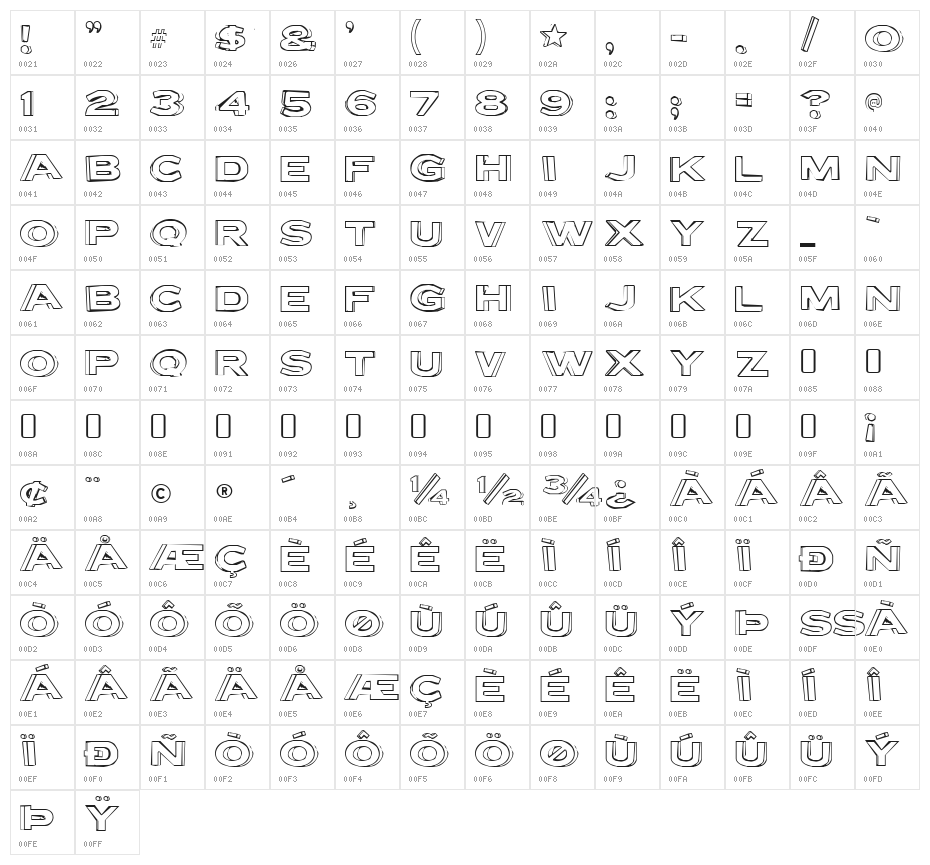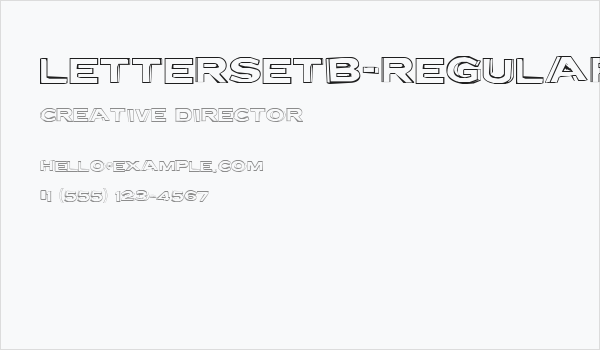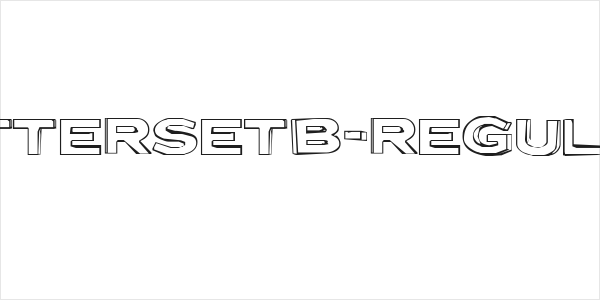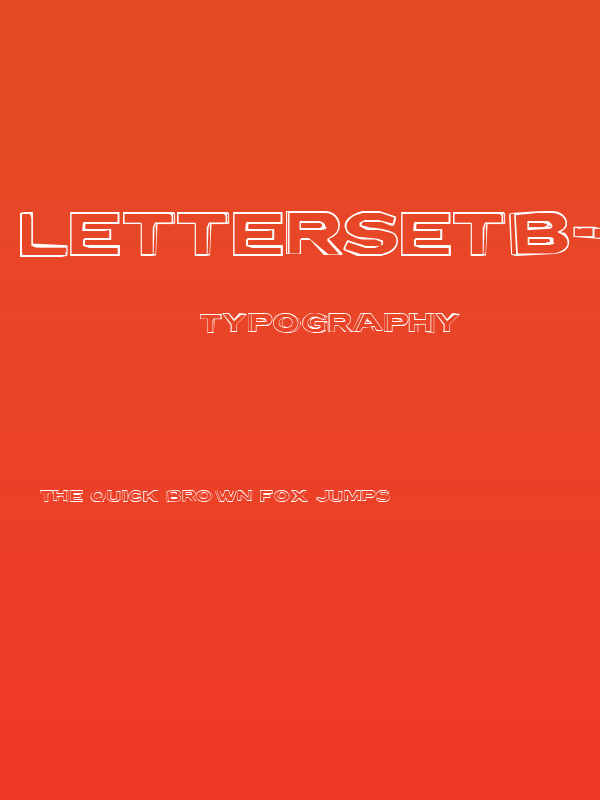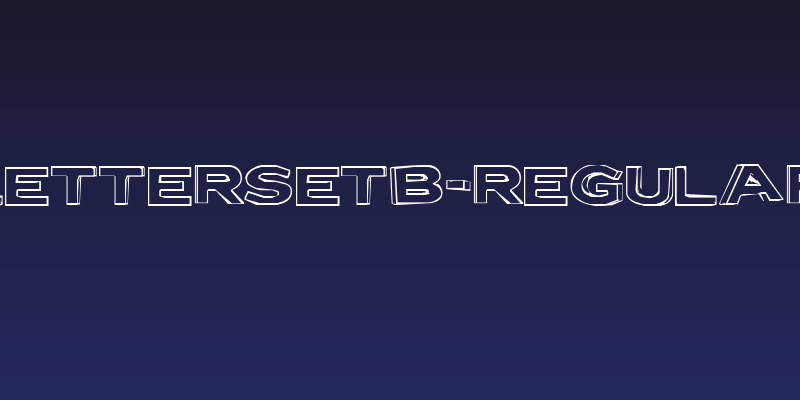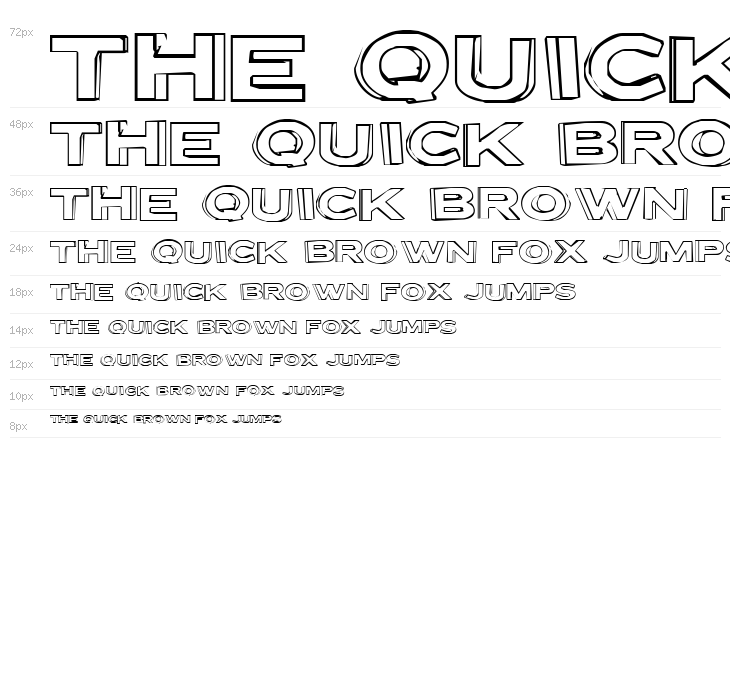
LetterSetB-Regular Font
LetterSetB-Regular Description
This font features a bold, three-dimensional design with a distinct outline that gives each character a sense of depth and dimension. The letters are uppercase and have a geometric, block-like appearance, making them stand out prominently. The numbers and special characters follow the same style, ensuring consistency throughout. The font's unique design is eye-catching and modern, suitable for projects that require a strong visual impact.
| Proposed Projects | Ideal for posters, headlines, logos, and any design requiring a bold statement. |